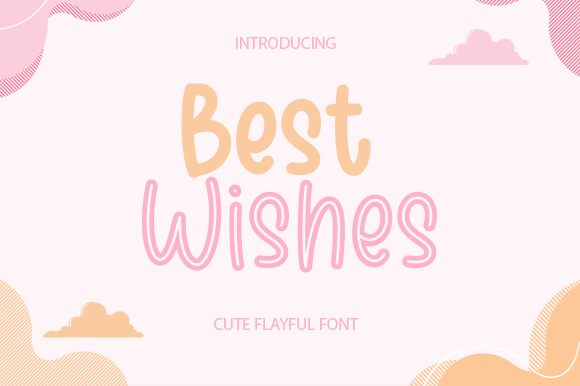
Best Wishes is a charming semi-condensed font designed by Risma Ramawi. Its cute and playful handwritten style will make your projects stand out with its unique personality. This font is perfect for greeting cards, invitations, posters, and anything that requires a touch of whimsy. Best Wishes comes in a variety of weights including semi-bold and bold, making it versatile for both headers and body text. Bring your designs to life with Best Wishes – the perfect choice for those who want to add a bit of fun to their projects!
Best Wishes
Risma Ramawi